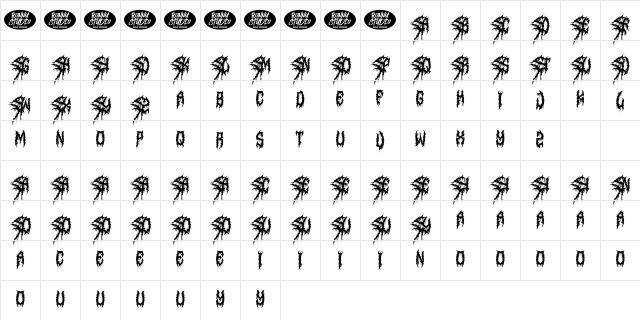
Morven DEMO Regular Free Font
Morven DEMO Regular
Foundry: Ronny Studio
Designer: Rony Rizki Jaya
Design Context for Morven DEMO
Morven DEMO is a composed and adaptable typeface that performs quietly and consistently across a wide range of design contexts.